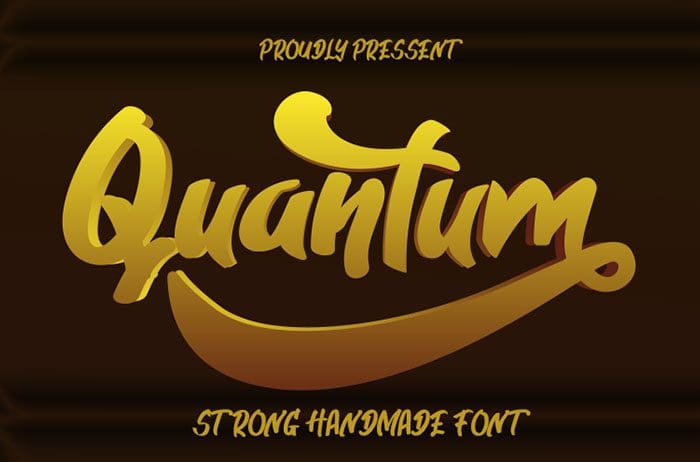
Quantum Handwritten Font
Quantum bold and unique handwritten font. This font is the perfect fit for all of your logos, social media, and crafty DIY projects. Designed this font by Inermedia Studio. You can also search more freeĀ Handwritten Fonts.